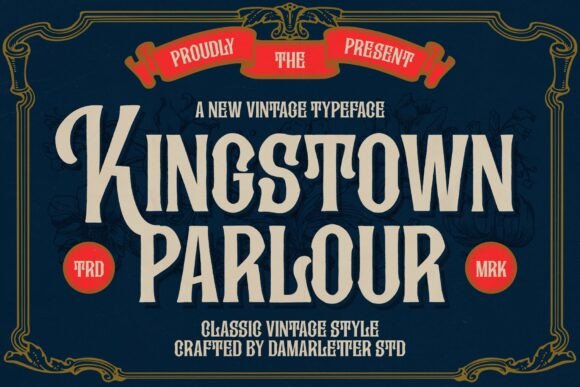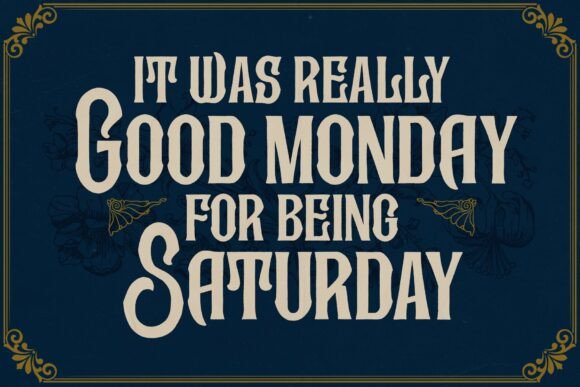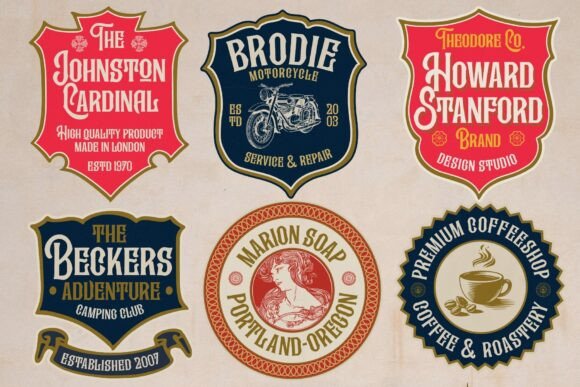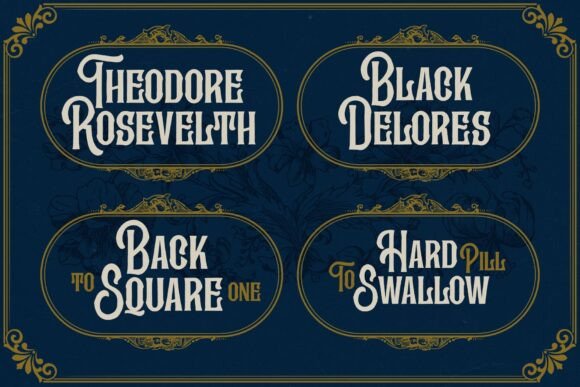
Kingstown Parlour Font: A Classic Vintage Display Font for Logos
About the Kingstown Parlour Font
Introducing the Kingstown Parlour Font, a beautifully crafted typeface designed to elevate your creative projects. Kingstown Parlour is a vintage typeface that exudes vintage typeface reminiscent of classic vintage signage and typography.
This elegant font features intricate details, classic vintage style, creating a dramatic and refined aesthetic.
Kingstown Parlour excels in headline use, short-form text, and branding applications where a touch of vintage elegance is desired. It’s ideal for logos, posters, packaging for high-end products, and short marketing materials. However, its intricate details make it unsuitable for body text or lengthy paragraphs, and its low x-height limits readability at smaller sizes. Avoid using it in UI contexts.
Its inherent elegance pairs well with clean sans-serif fonts like Helvetica Neue for a modern contrast or a geometric sans-serif such as Futura for a more structured feel. For a warmer, more traditional look, consider pairing it with a classic serif like Garamond or a softer script like Playfair Display, depending on the desired level of formality.
The font’s personality is sophisticated and refined, conveying a sense of classic elegance and timeless quality. It is best suited to brands projecting luxury, heritage, or a vintage-inspired aesthetic.
Kingstown Parlour Font Usage Examples
Kingstown Parlour Font Example